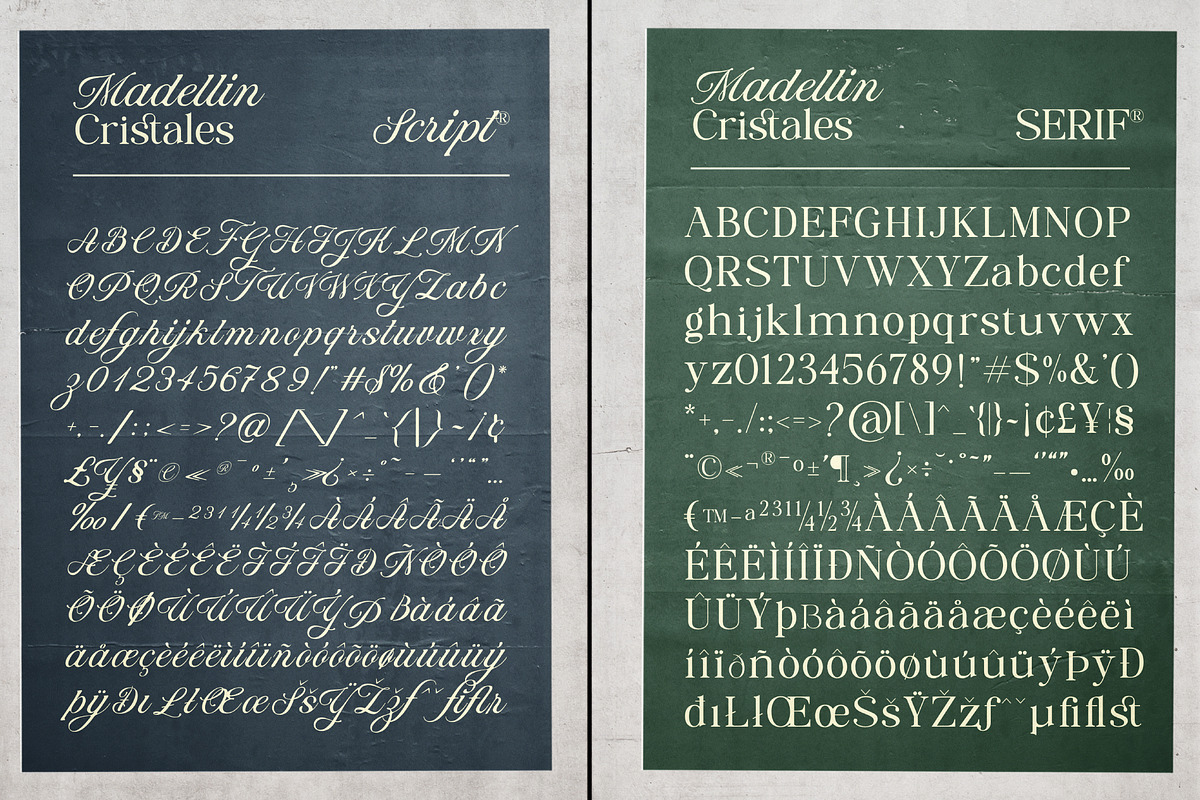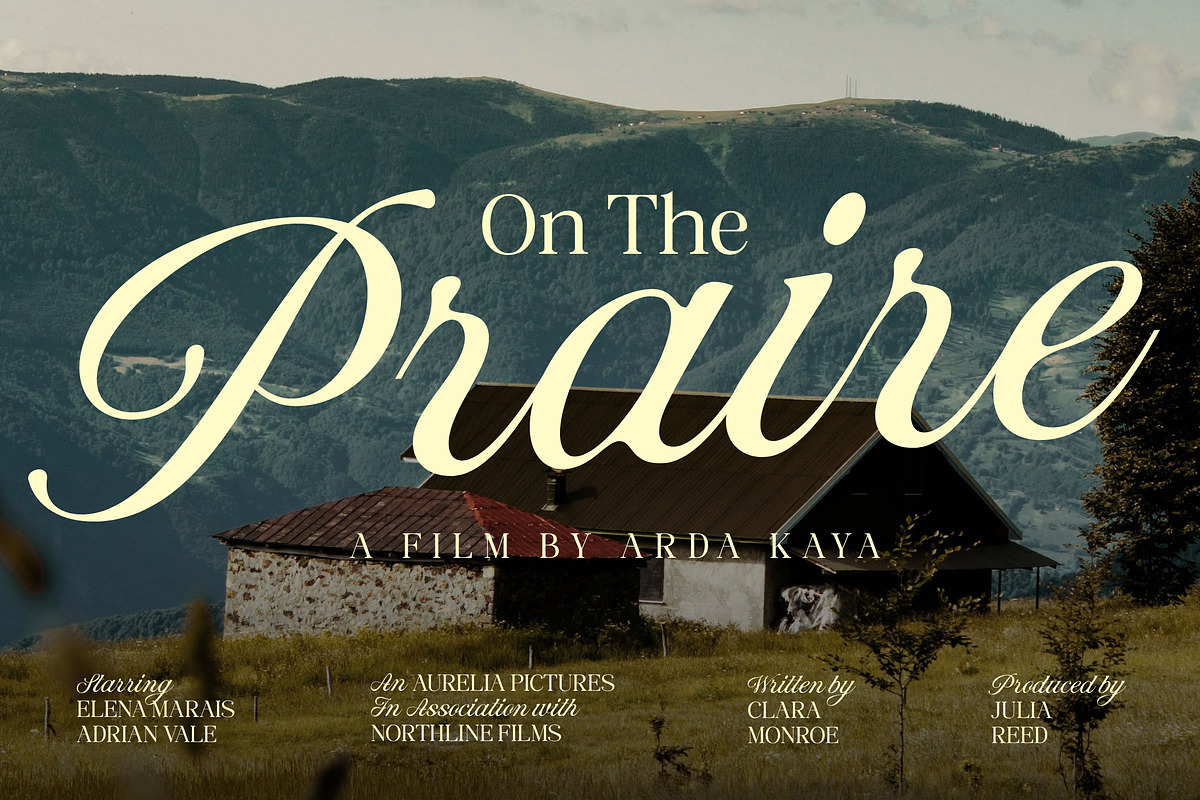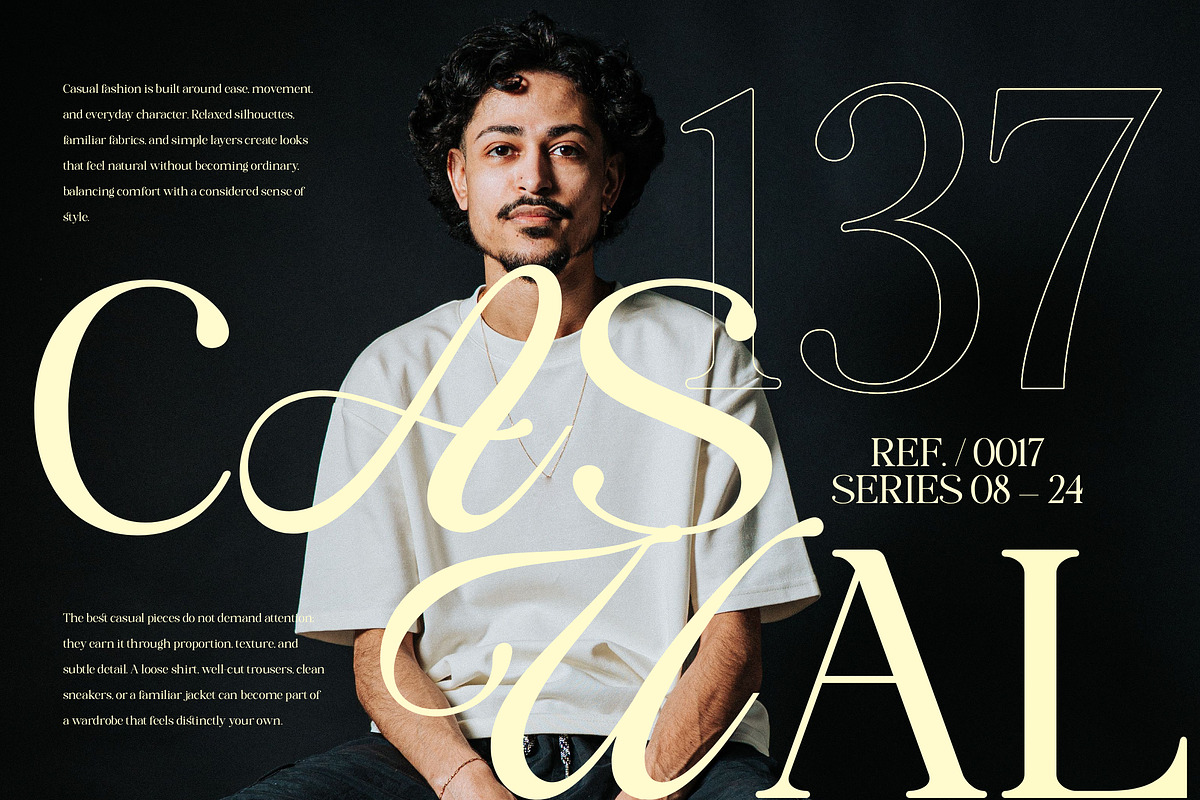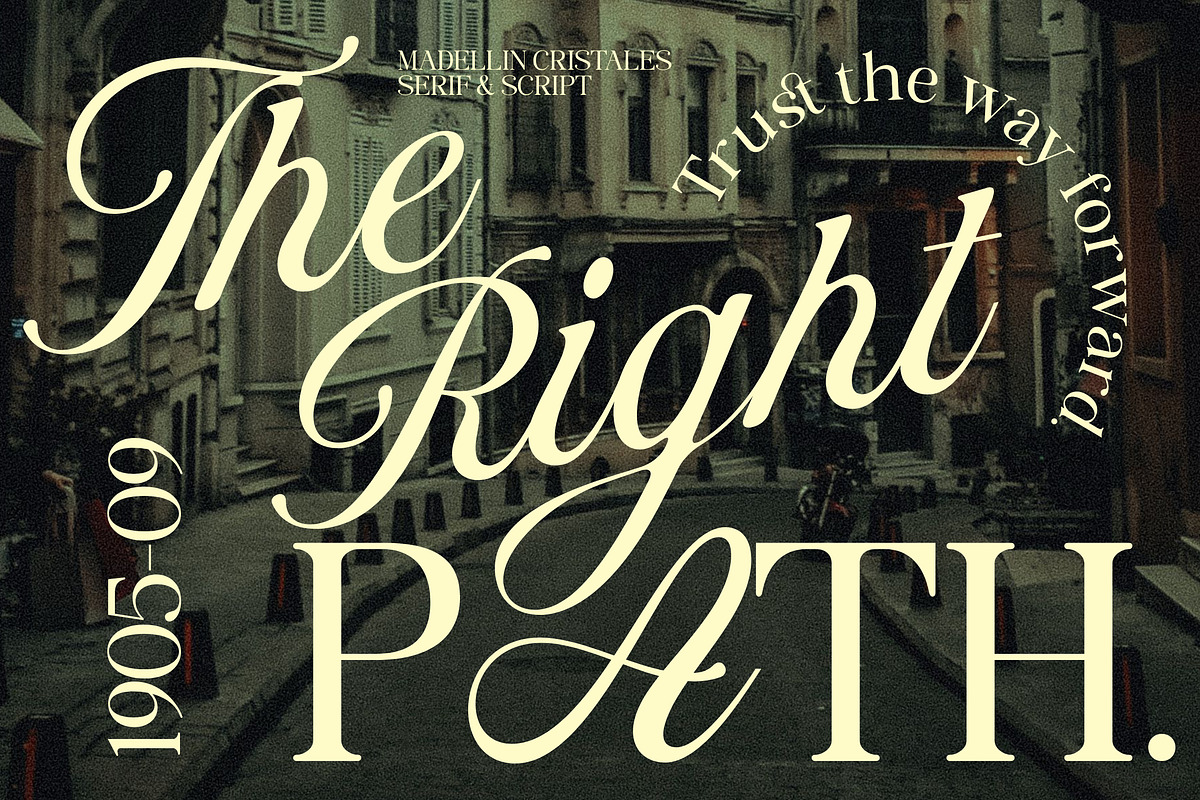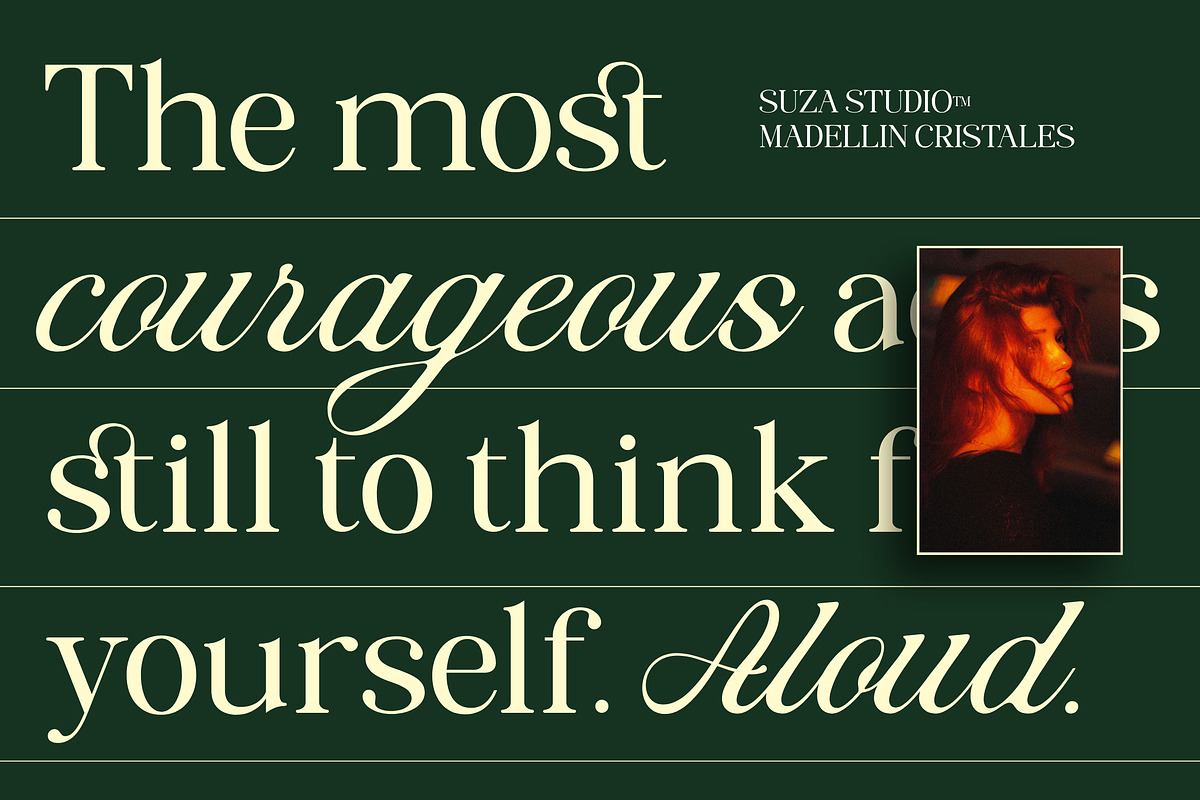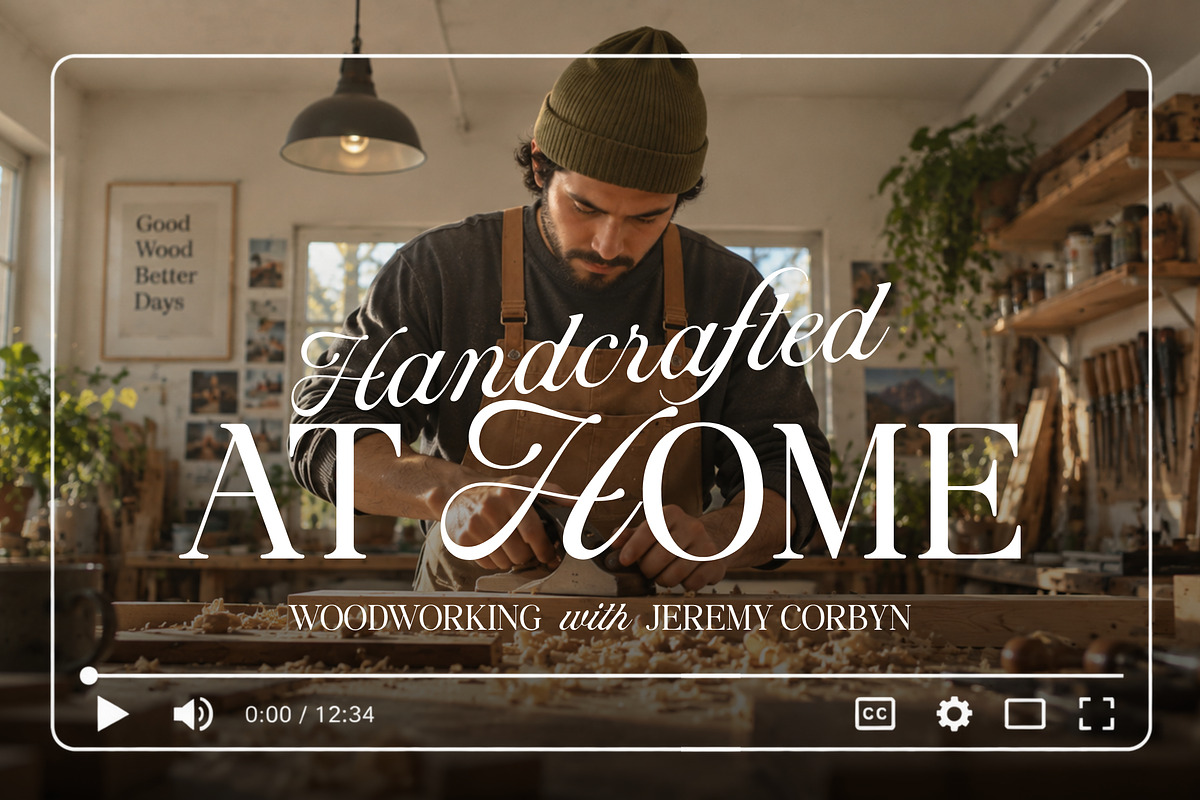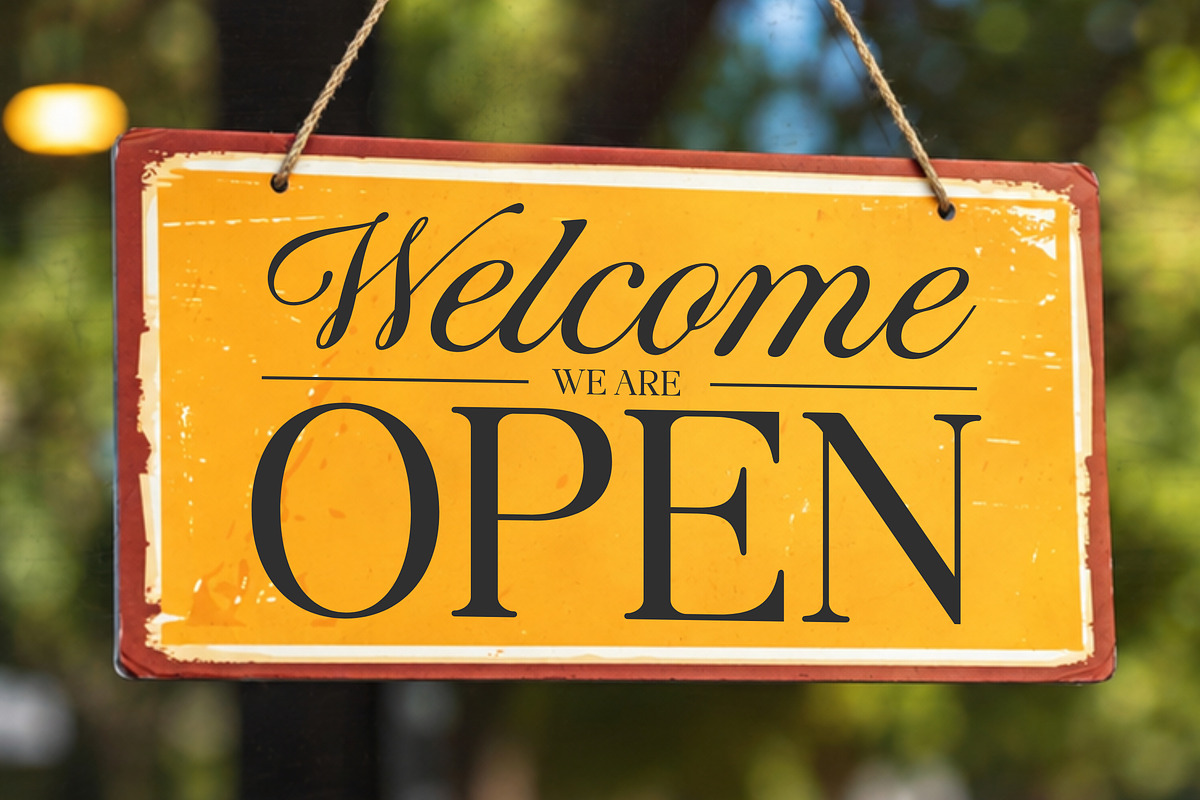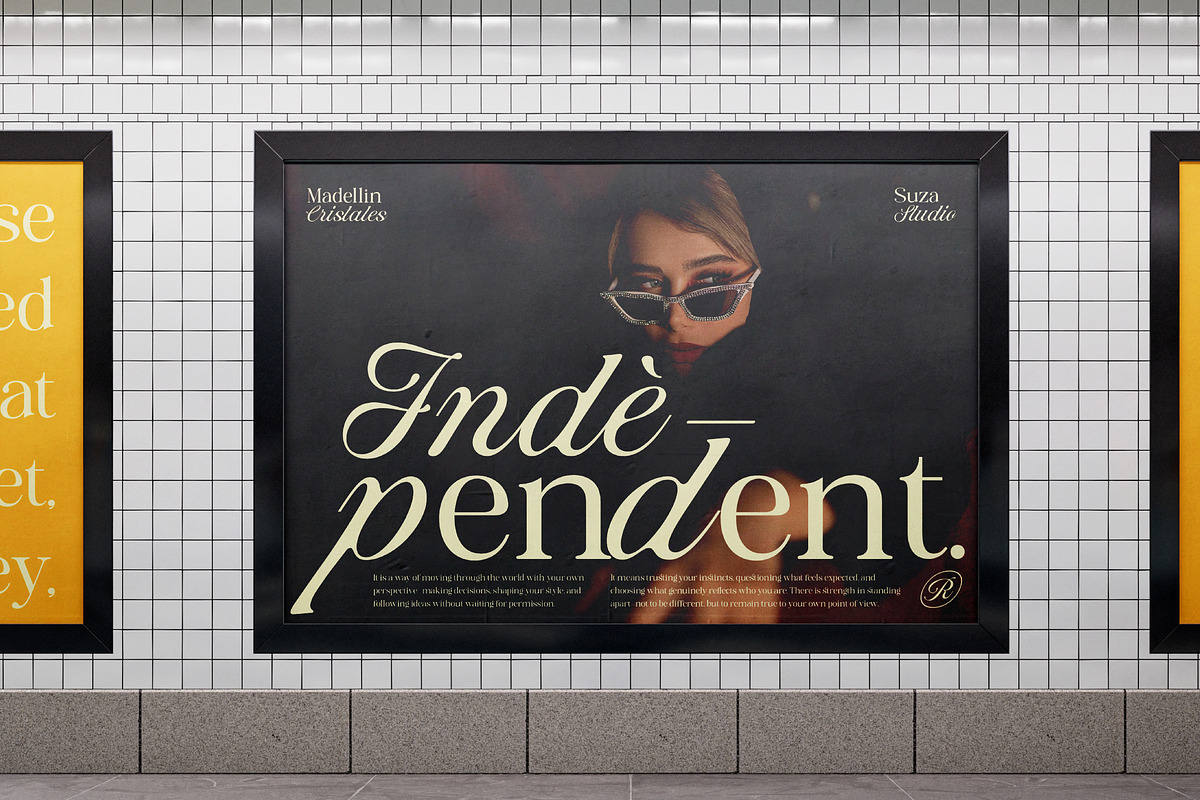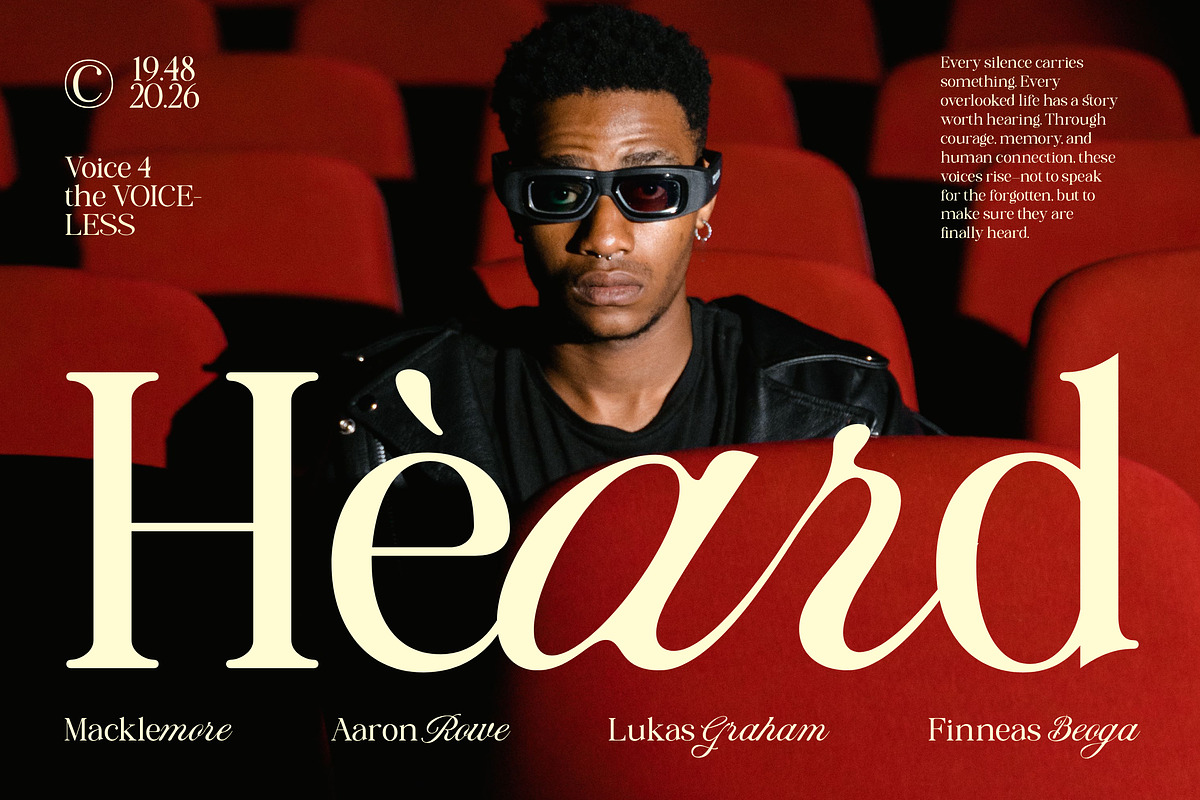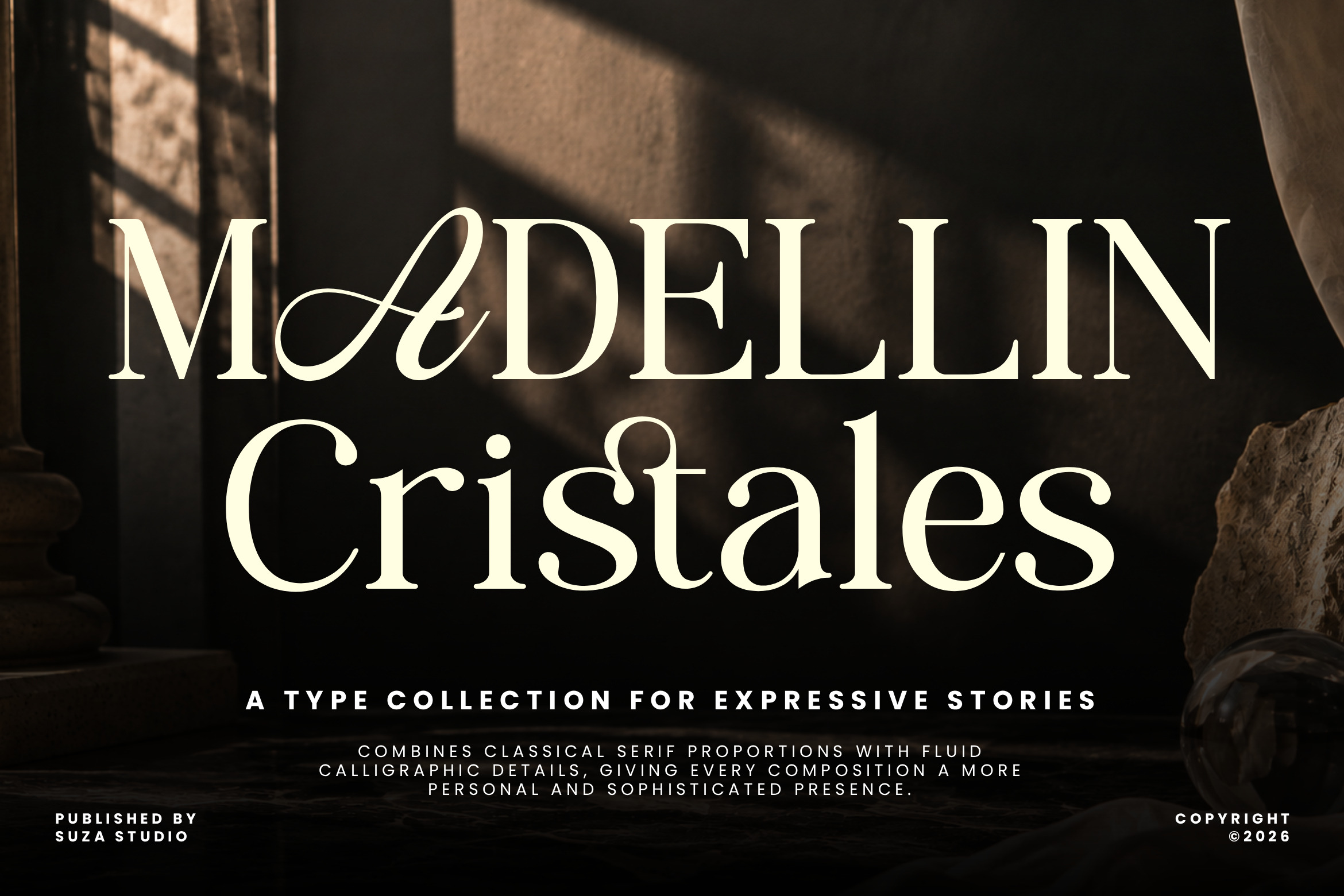
Madellin Cristales - Font Duo
Madellin Cristales Duo Font is a captivating blend of script and serif, exuding a timeless atmosphere and nostalgic charm that enhances every design. This unique blend brings a touch of sophistication to any project, making it an ideal choice for branding, editorial layouts, and social media visuals. With its versatile aesthetic, Madellin Cristales enriches your design toolkit, offering endless creative possibilities for refined and stunning results.